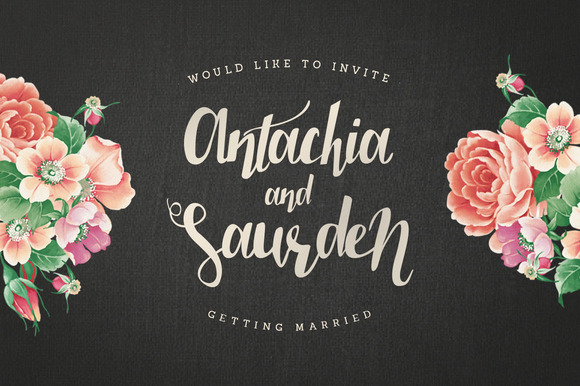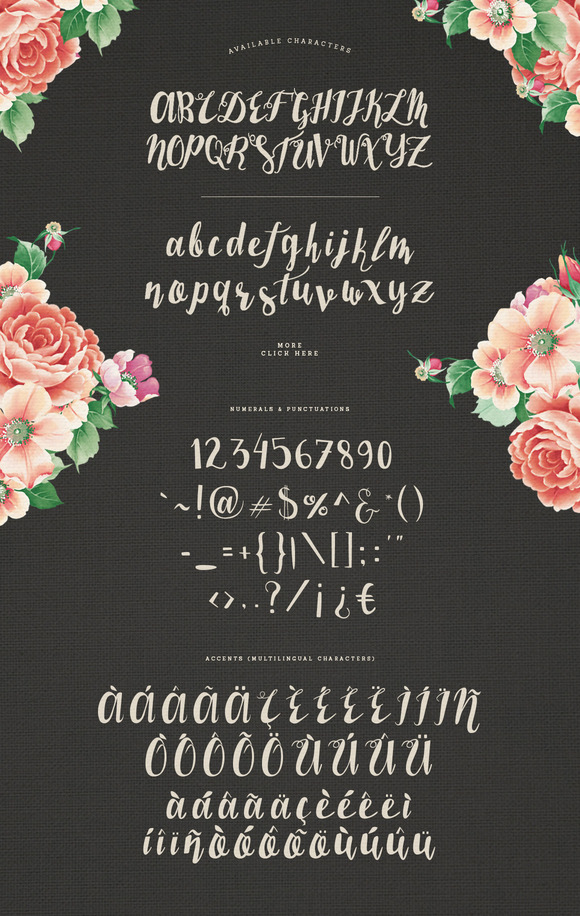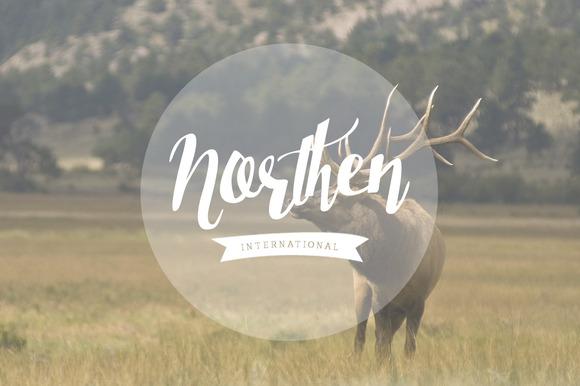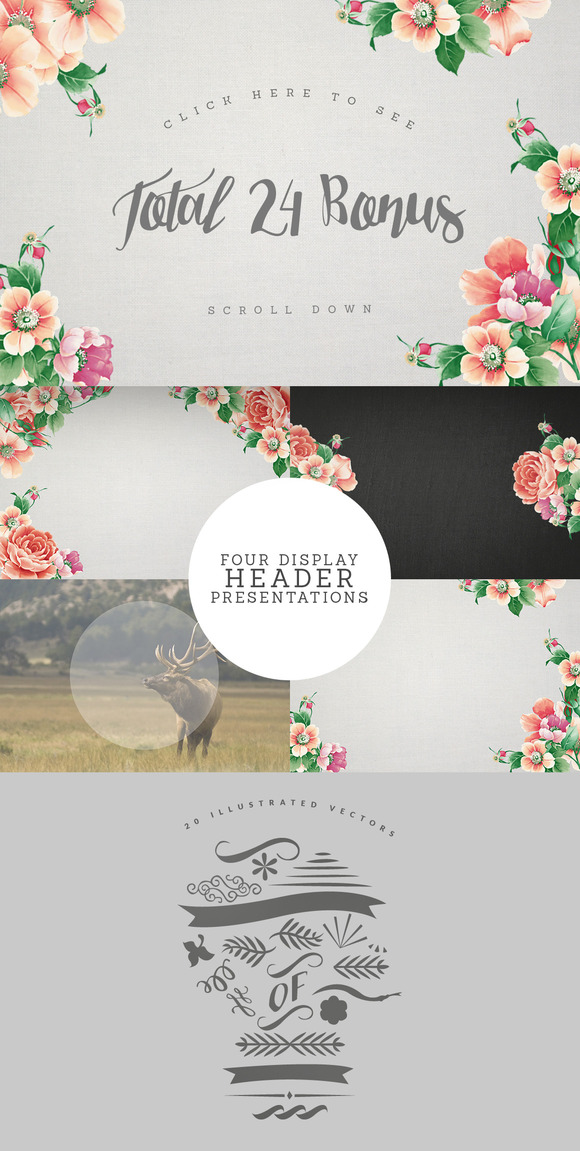
Shine & Tokio Typeface + BONUS
Shine & Tokio Typeface
Shine & Tokio is a fun script font with a strong natural feel. Shine & Tokio could easily attract the attention to your message.
It makes the design look personal and natural. Shine & Tokio suitable for vintage design as well as modern design, it can be used in your watercolour design project, greeting card, poster, t-shirt design, branding, etc.
• Uppercase
• Lowercase
• Numerals & Punctuations
• Accents (Multilingual characters)